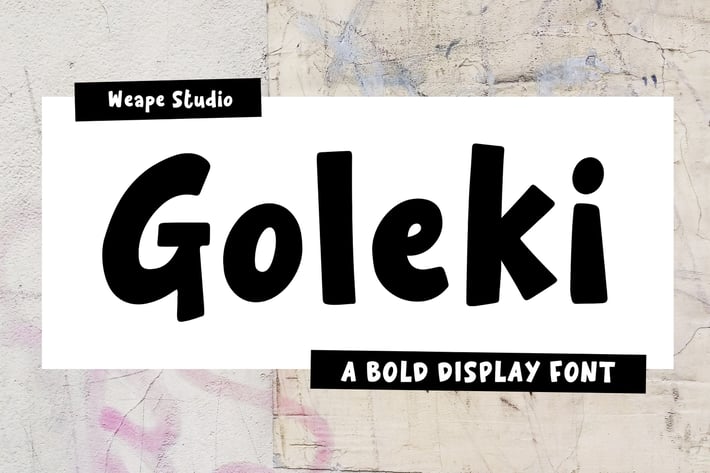
Goleki - Display Font
Introducing a display font with fun vibes, Goleki Font. Perfect for creating logos, quotes, greeting cards, book covers, posters, packaging and so much more. You can combine a unique uppercase and lowercase to make fun designs.
All fonts contain upper & lowercase characters, numerals, and a large range of punctuation.